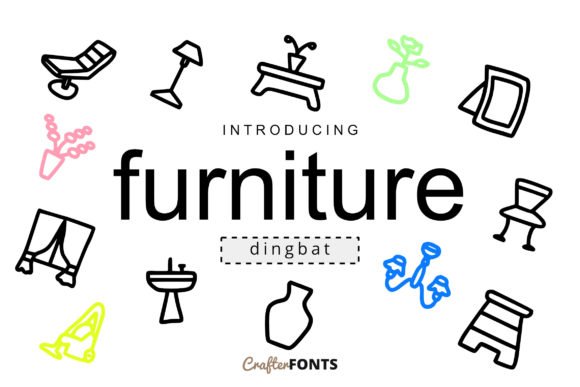
Introduction to Furniture Doodle Font
Furniture Doodle Dingbats Font These simple furniture doodles are suitable for many projects, including logos, ornaments, and home decor-related creations.
Key Features of Furniture Doodle Font